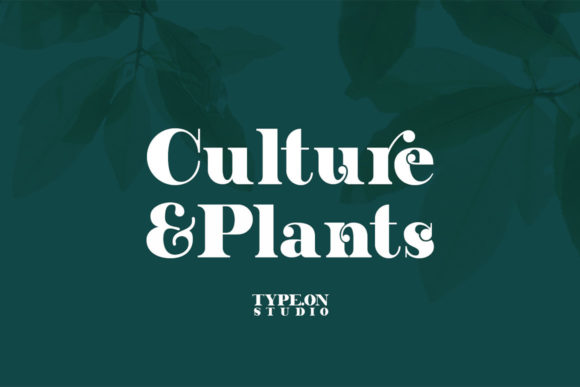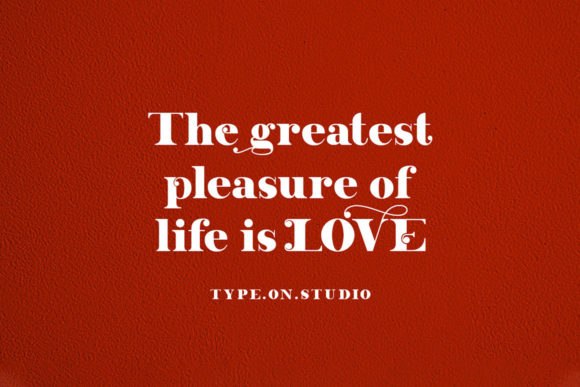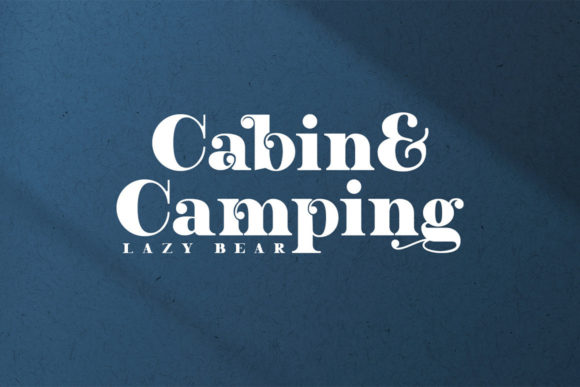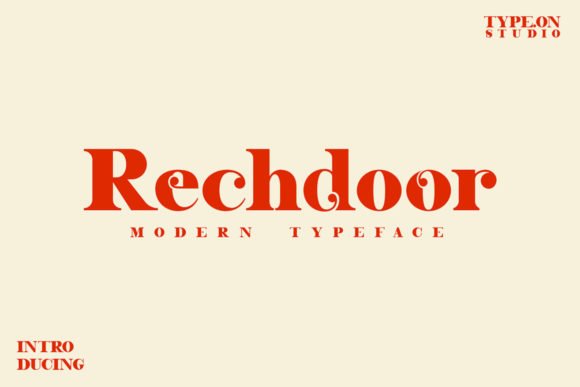
Introduction to Rechdoor Font
Rechdoor is a bold and trendy looking serif font.
This font is PUA encoded which means you can access all glyphs and swashes with ease Add it confidently to your favorite creations and let yourself be amazed by the outcome generated.